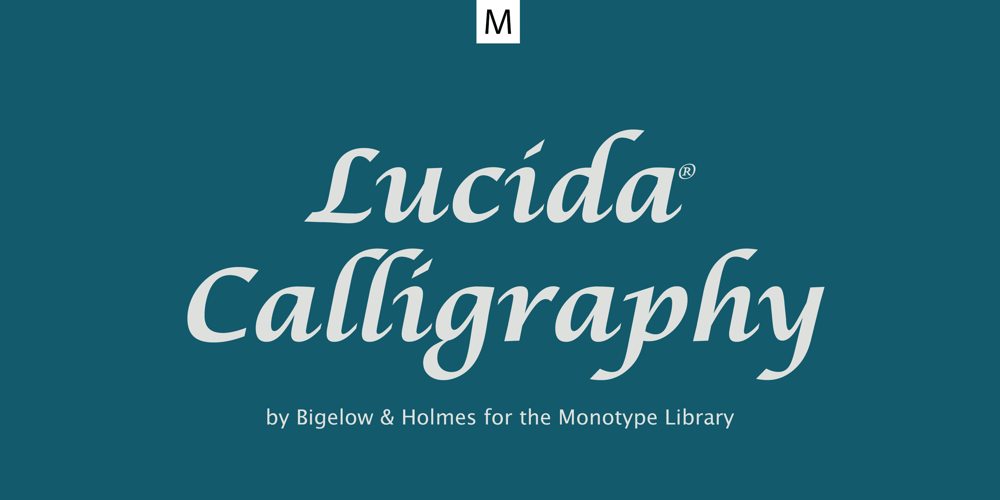
Lucida Calligraphy
Lucida Calligraphy font
Lucida Calligraphy Font Family was designed by Charles Bigelow, Kris Holmes and published by Monotype. Lucida Calligraphy contains 5 styles and family package options. Lucida Calligraphy is a chancery cursive script typeface family designed by Kris Holmes and Charles Bigelow. It is a very legible and readable typeface, designed for use on screen and in print environments. Lucida Calligraphy was originally released in one weight. It is now available in five weights, from Thin to Black. Lucida Calligraphy is part of the Lucida superfamily of fonts from Bigelow & Holmes. Lucida is highly regarded for legibility and its extensive range of type styles. The Lucida Calligraphy typeface family has a Standard character set with 255 glyphs supporting the basic range of Latin languages.